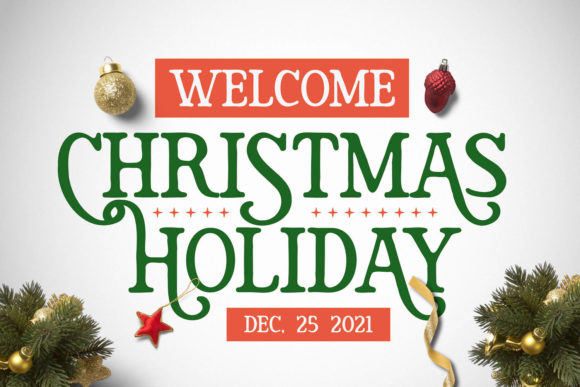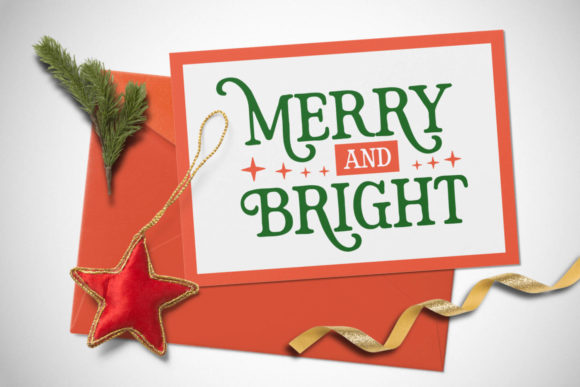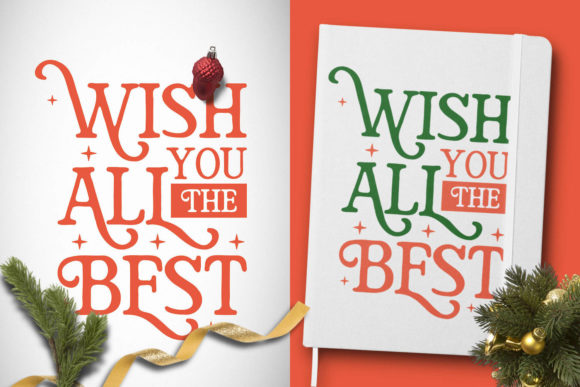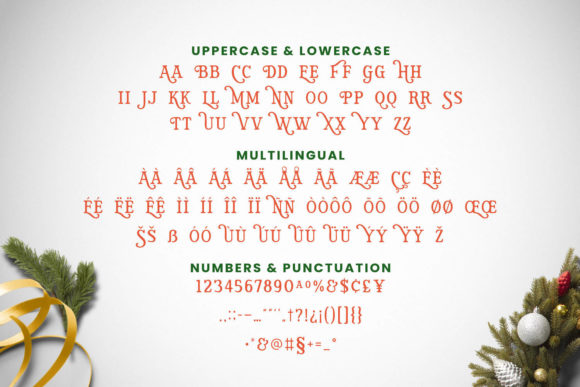
Introducing Binrong Font: Elevate Your Designs with a Vintage Flair
In the world of typography, fonts play a crucial role in conveying the tone and personality of a design. Whether you’re a seasoned designer or a crafty enthusiast, having the right font in your arsenal can make all the difference. That’s where Binrong Font comes in – a vintage-styled and bold display font that’s sure to become an incredible asset to your font library.
The Charm of Binrong Font
Binrong Font boasts a unique blend of classic and modern elements, making it perfect for a wide range of design applications. Its bold and eye-catching style is sure to grab attention, while its vintage flair adds a touch of sophistication and elegance. Whether you’re working on a logo, poster, or social media graphic, Binrong Font is guaranteed to elevate your creation and make it stand out from the crowd.
Key Features of Binrong Font
• Vintage Style: Binrong Font features a distinctive vintage style that’s reminiscent of classic typography from the past.
• Bold and Eye-Catching: With its bold and chunky design, Binrong Font is perfect for headlines, titles, and other display text.
• Highly Versatile: Whether you’re working on a digital project or a print design, Binrong Font is highly versatile and can be used in a variety of contexts.
• Easy to Read: Despite its bold style, Binrong Font is surprisingly easy to read, making it perfect for use in body text as well as display text.
How to Use Binrong Font in Your Designs
Binrong Font is incredibly easy to use and can be incorporated into your designs in a variety of ways. Here are a few ideas to get you started:
• Logos and Branding: Use Binrong Font to create a bold and eye-catching logo that’s sure to make your brand stand out.
• Posters and Flyers: Add a touch of vintage flair to your posters and flyers with Binrong Font.
• Social Media Graphics: Use Binrong Font to create eye-catching social media graphics that are sure to grab attention.
• Packaging Design: Add a touch of elegance and sophistication to your packaging design with Binrong Font.
Why Choose Binrong Font?
With so many fonts to choose from, why should you choose Binrong Font? Here are just a few reasons:
• Unique Style: Binrong Font boasts a unique and distinctive style that’s sure to set your designs apart.
• High-Quality Design: Binrong Font is designed to the highest standards, ensuring that it looks great in any context.
• Easy to Use: Binrong Font is incredibly easy to use and can be incorporated into your designs in just a few clicks.
In conclusion, Binrong Font is an incredible asset to any font library. Its unique blend of vintage style and bold design makes it perfect for a wide range of design applications. Whether you’re a seasoned designer or a crafty enthusiast, Binrong Font is sure to elevate your creations and help you achieve your design goals. So why wait? Download Binrong Font today and start taking your designs to the next level!